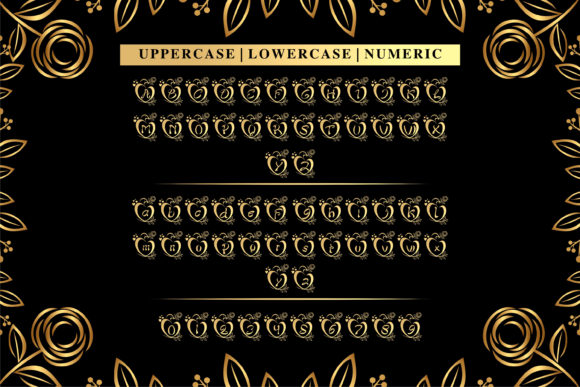
Loveena Monogram Font – Free Download
Introduction to Loveena Monogram Font
Loveena Monogram is a romantic and elegant decorative font.
Key Features of Loveena Monogram Font